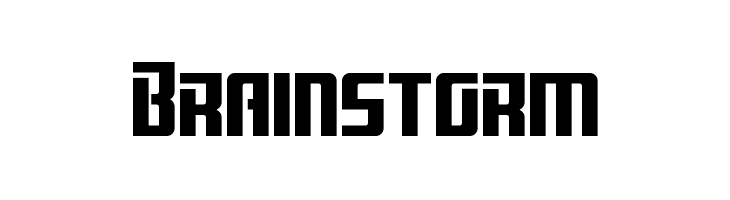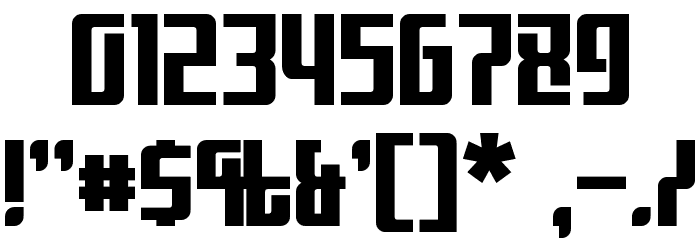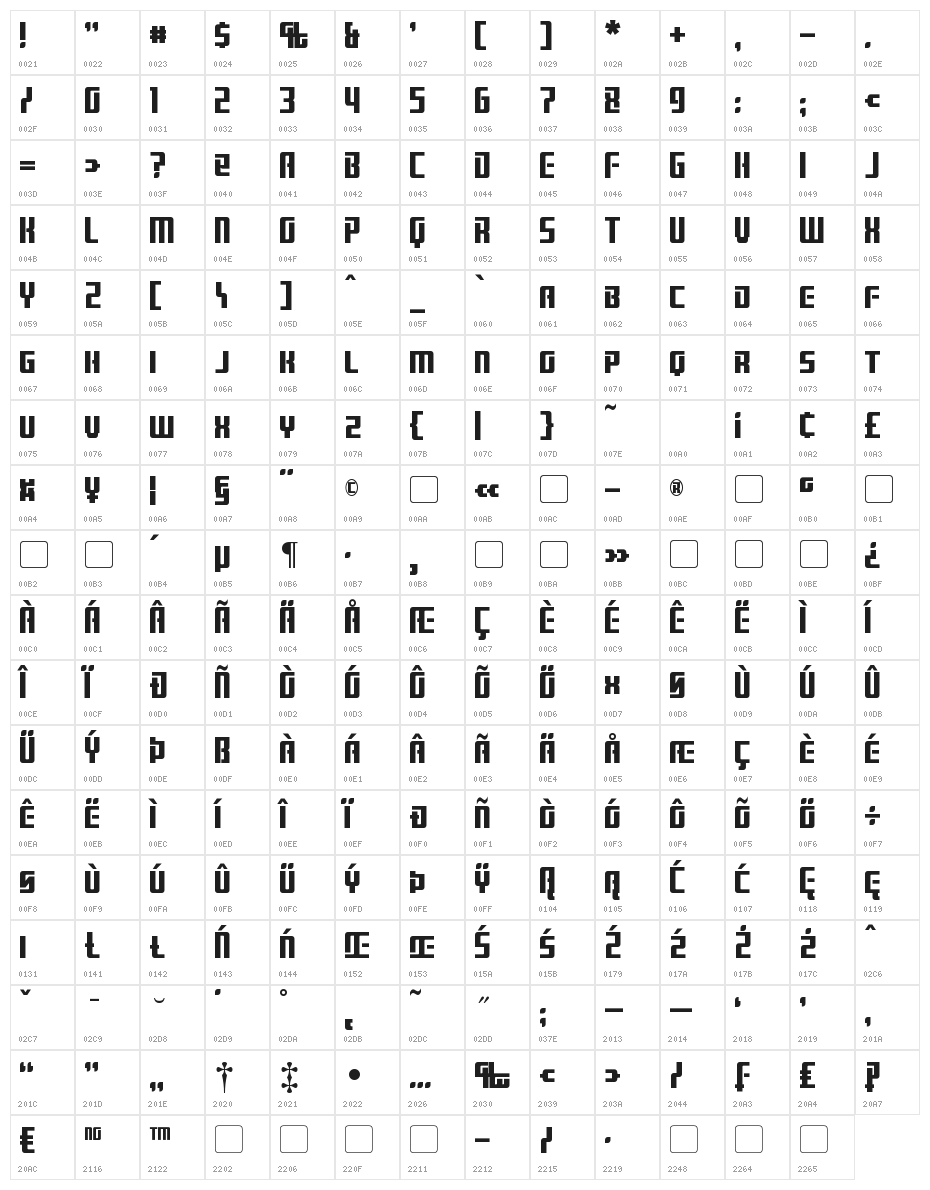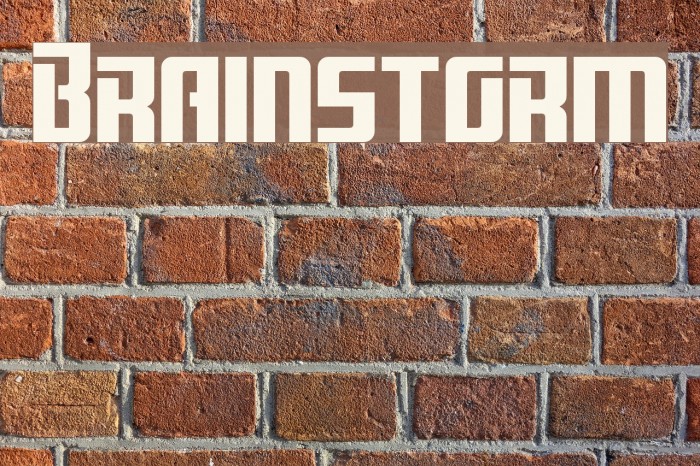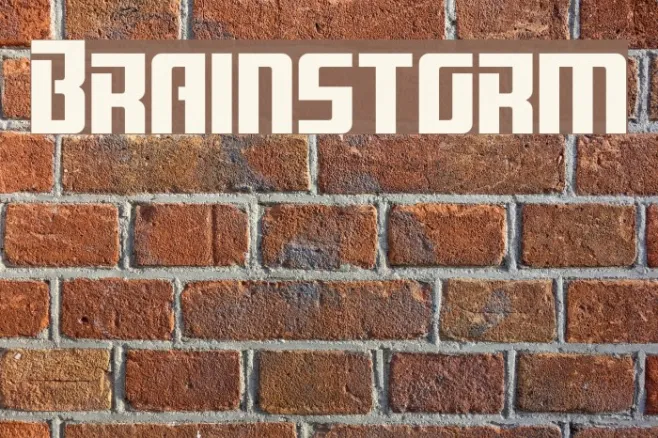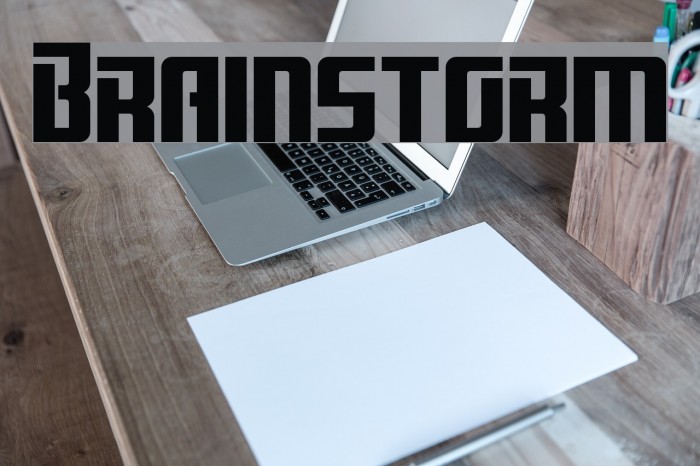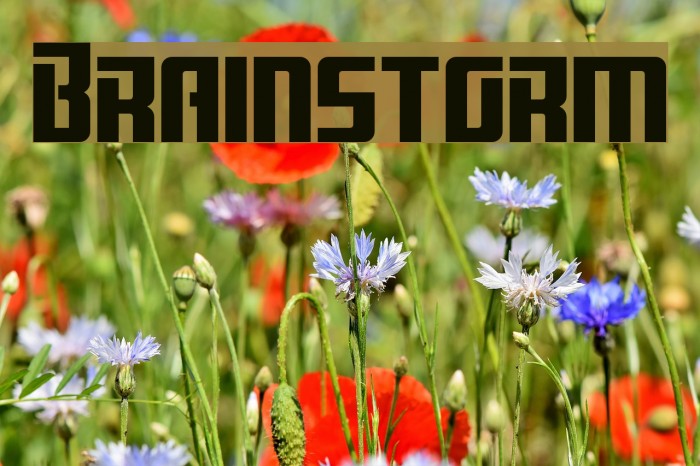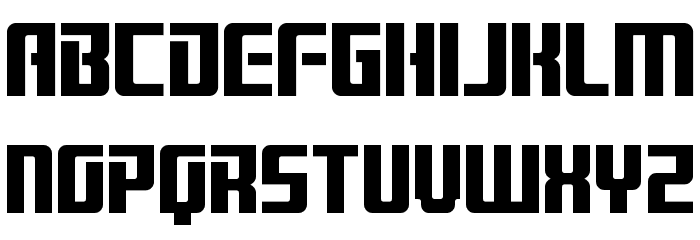
Brainstorm Font
Brainstorm Description
This font features a bold, geometric design with a strong, modern aesthetic. The characters are constructed with thick, uniform strokes, creating a sense of solidity and impact. The angular shapes and sharp edges give it a futuristic feel, while the consistent stroke width maintains a clean and organized appearance. The font is highly legible, making it suitable for attention-grabbing headlines and titles. Its distinctive style is characterized by a blocky, almost industrial look, which can add a dynamic and contemporary touch to any design project.